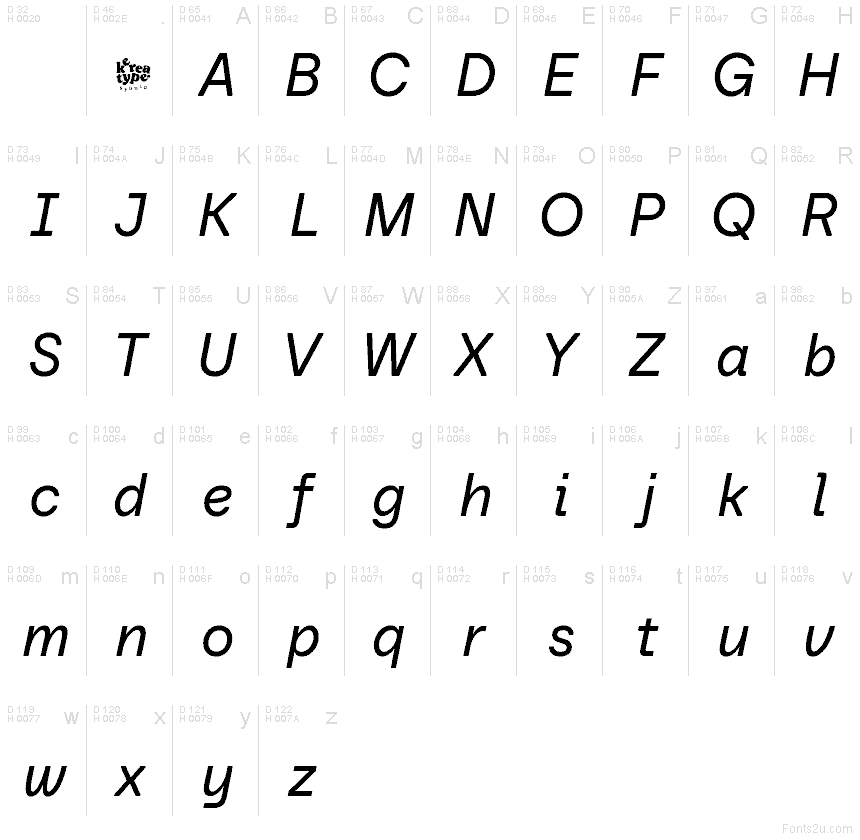
Baru Sans Demo Italic
Baru Sans Italic font by Kereatype Studio is a free sans serif typeface that fixes a common gap: an italic that adds energy without sacrificing clarity. Part of the Baru Sans family, its gentle forward lean, open counters, and even rhythm create a crisp, agile line that stays readable at small sizes and feels lively at larger ones. The strokes have a smooth, inky flow—enough motion to guide the eye, none of the fuss.
Using Baru Sans Italic, headlines pick up momentum, captions stand out cleanly, and UI labels, pull quotes, product packaging, slide decks, and social graphics gain a subtle lift. This free font shines on brand taglines where a hint of speed matters. Pair it simply with Baru Sans Regular for body text, or keep it a size or two larger to let the slant breathe.